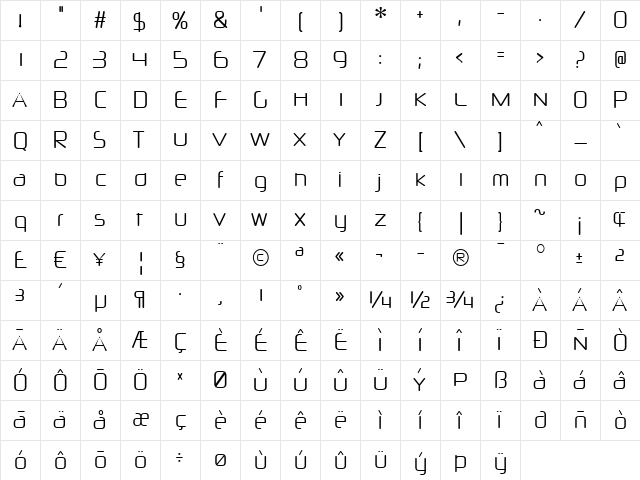
Neuropol X Cnd Lite Regular
Design Context for Neuropol X Cnd Lite Typeface
Neuropol X Cnd Lite takes a measured approach to typography — its balanced proportions and neutral character make it a reliable workhorse for both digital and print work.